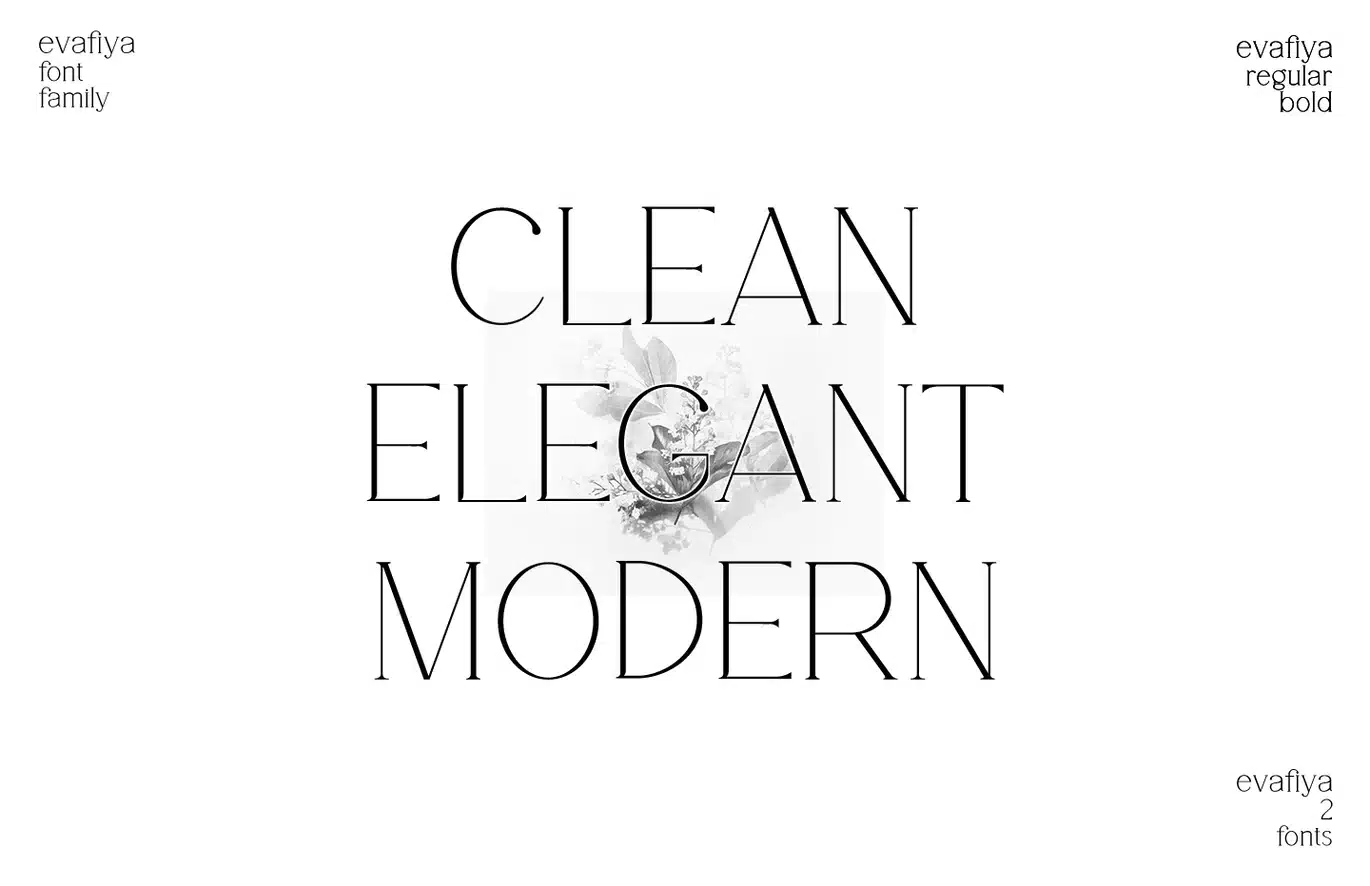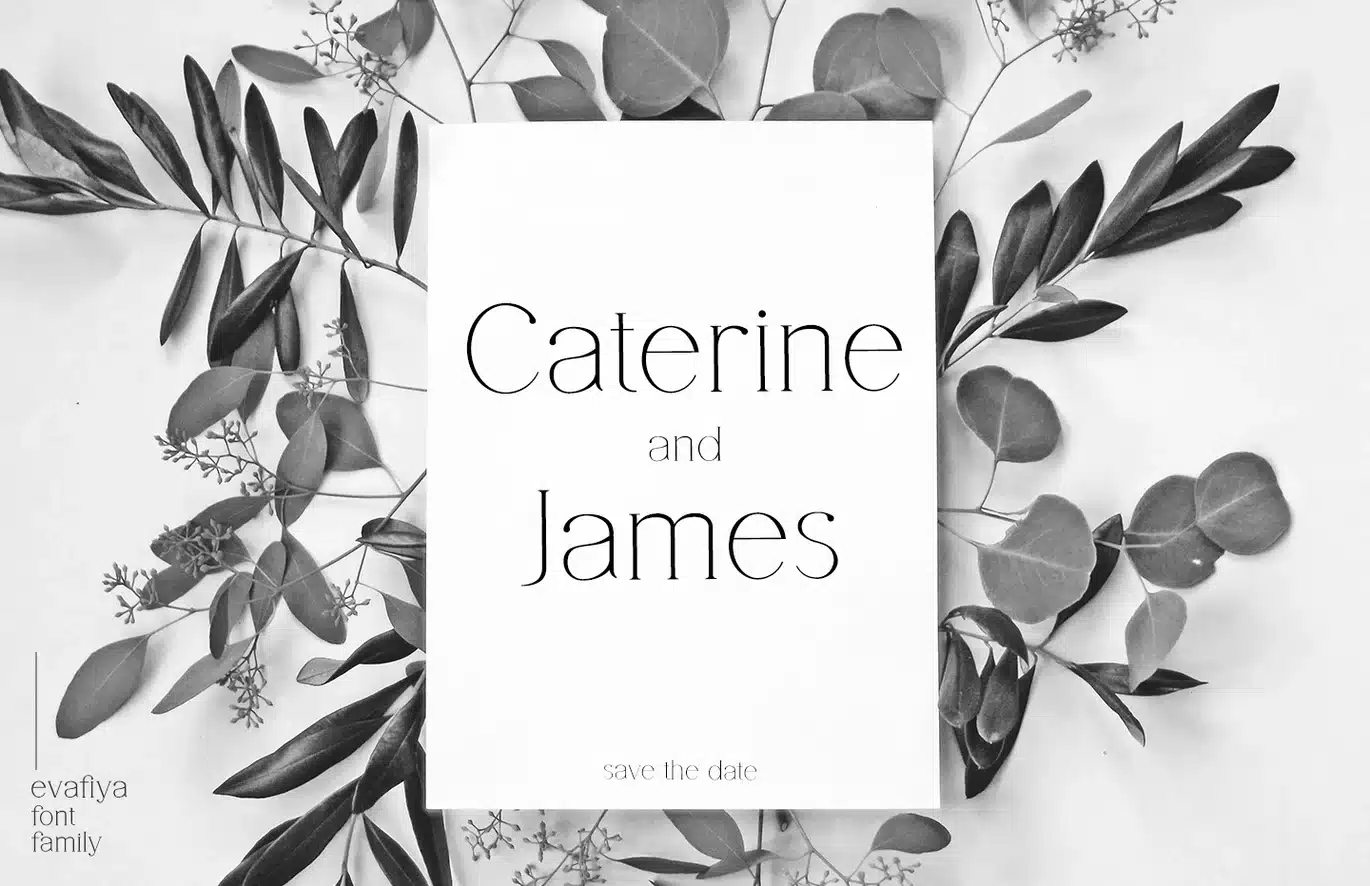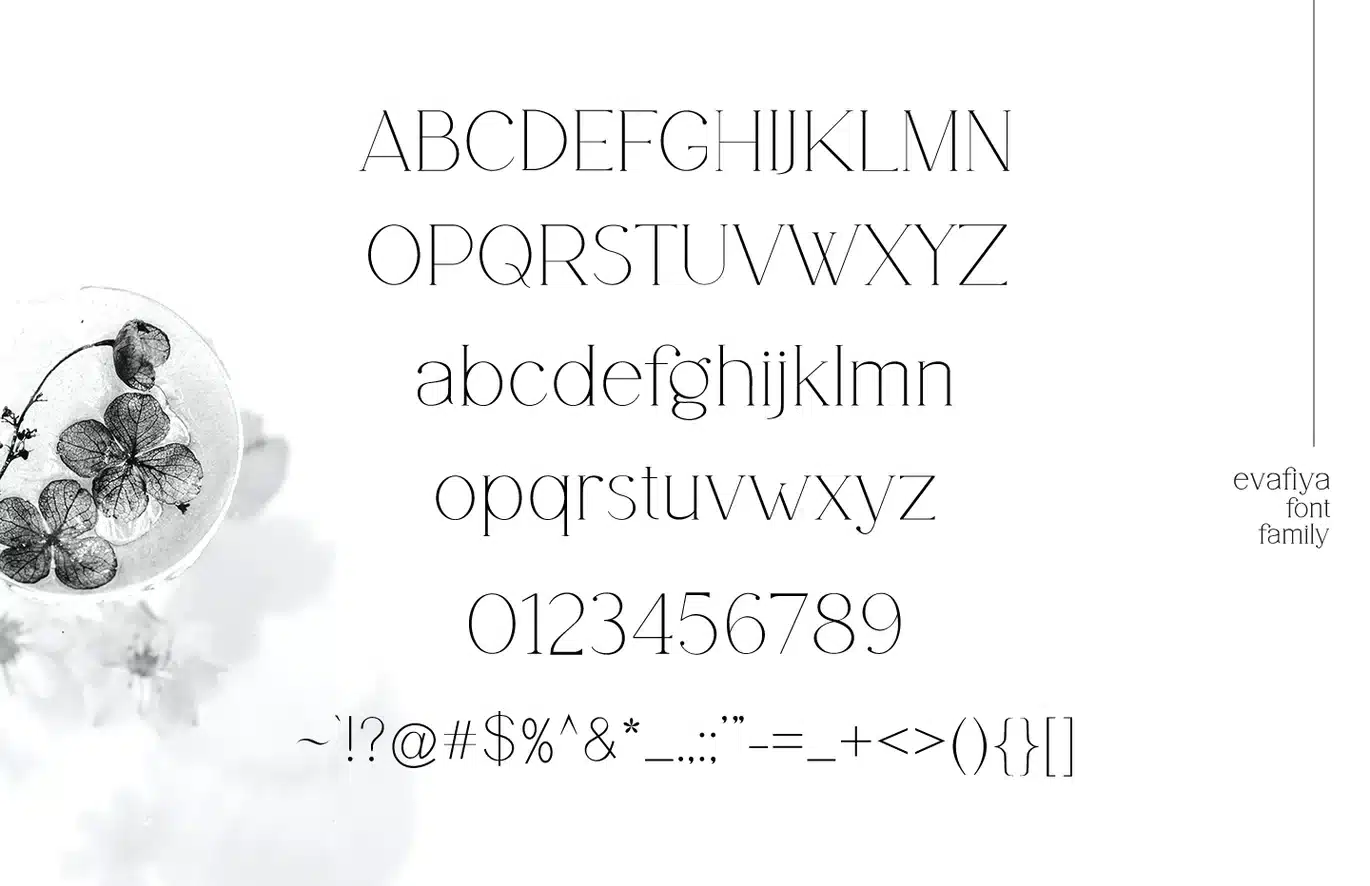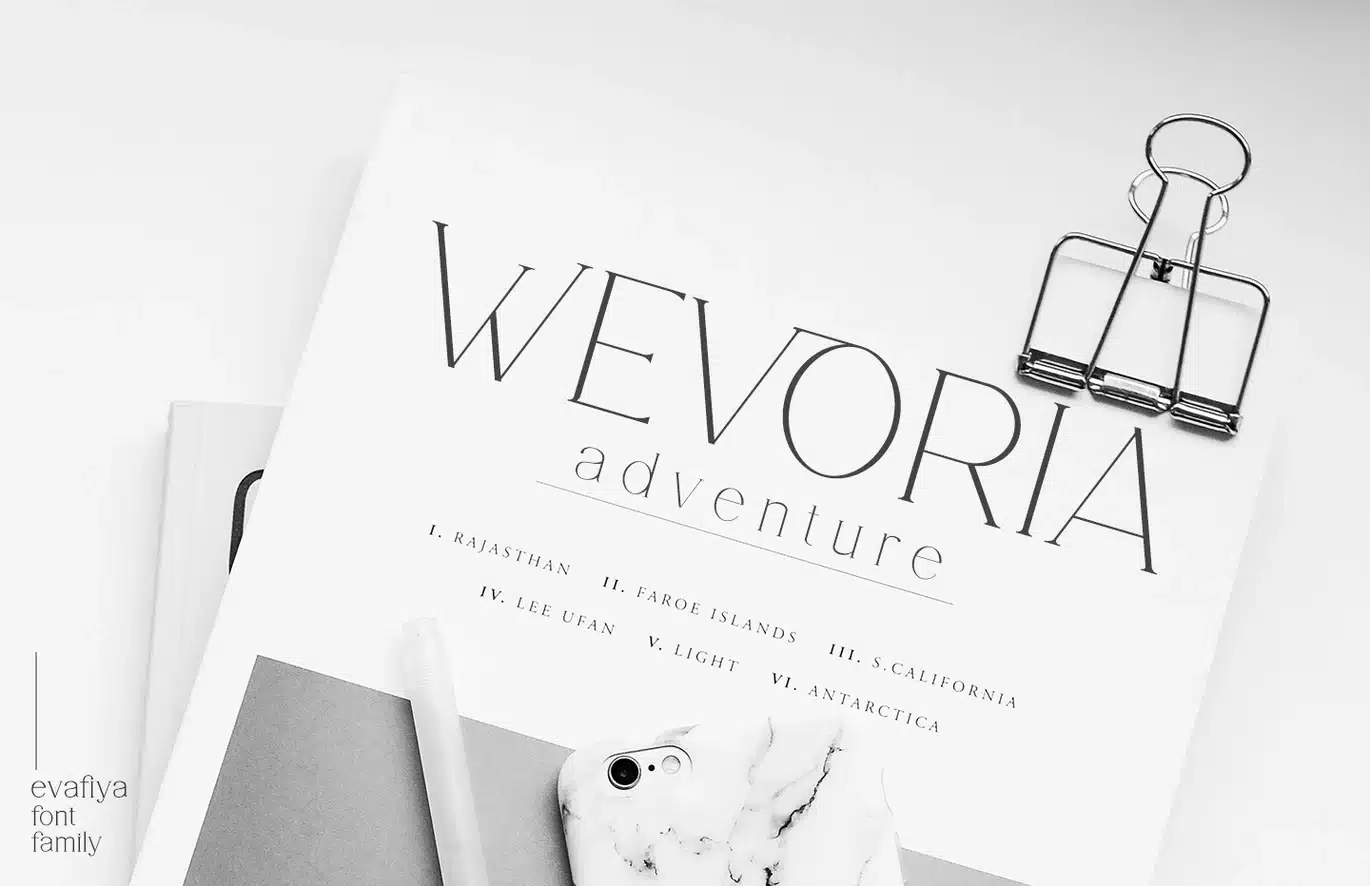
Evafiya – Clean Serif Font
Evafiya is an elegant and clean serif font. This font is perfect for logo, social media posts, advertisements, product packaging, branding projects, wedding invitations, product designs, label, photography, watermark, and stationery.
- Regular and bold style
- Punctuation & Symbols